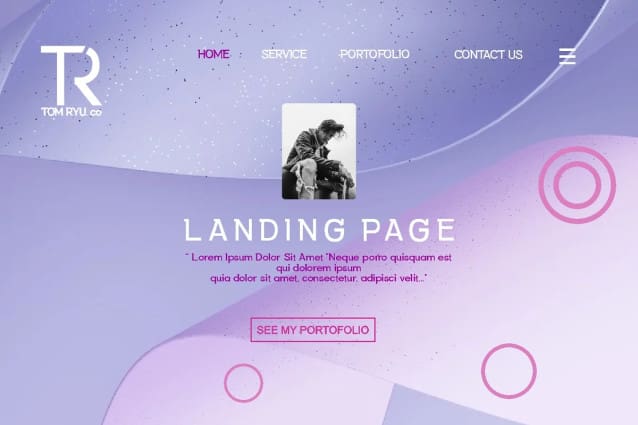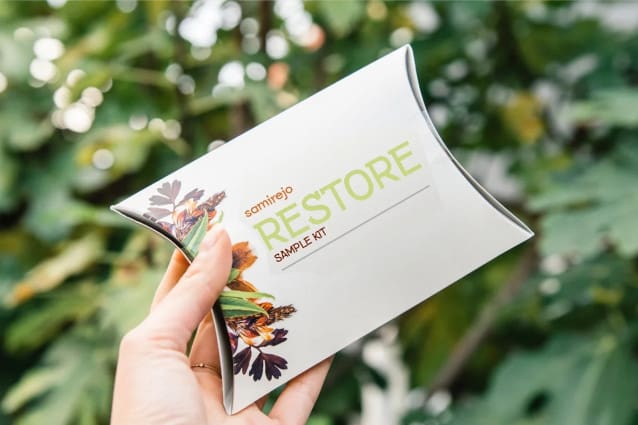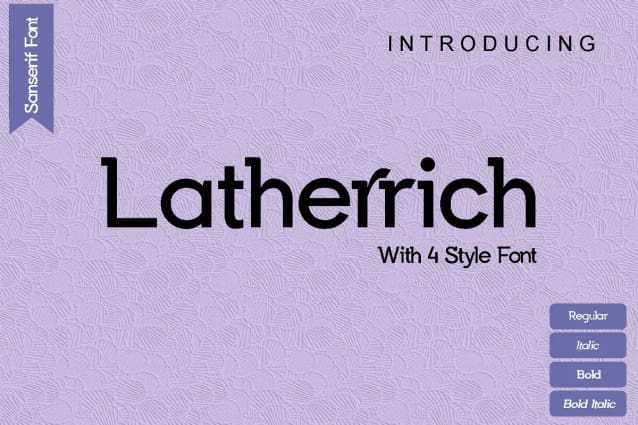
Latherrich Font
Latherrich Font is a unique, geometric, sans-serif font family inspired by iconic typefaces such as Avant Garde and museo slab. Latherrichfonts are versatile and can be used successfully in magazines, posters, branding, wedding invitations, cards, interiors, product design, websites, etc. Feature: Open Type Feature Web fonts Standard Ligatures